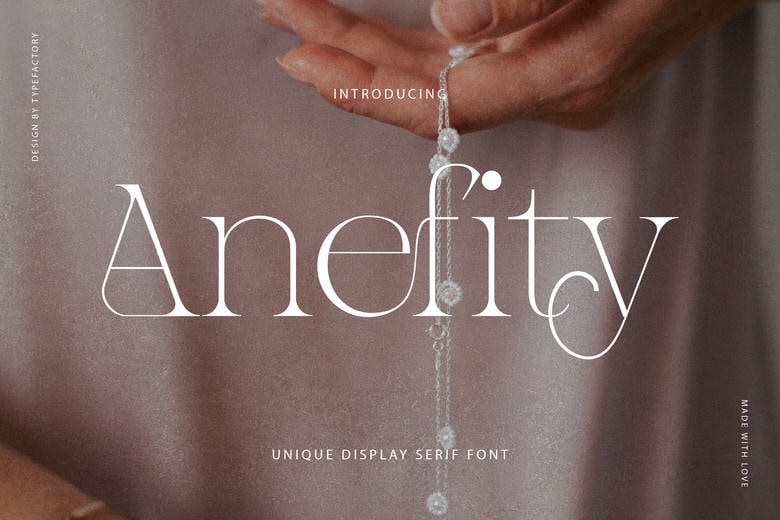
Anefity Font
Introducing Anefity – a one-of-a-kind display serif font that marvellously merges time-honoured elegance with a splash of modern panache. Drawn with sweeping curves and polished serifs, Anefity imparts an element of finesse to every design undertaking. Perfectly suited to branding initiatives, editorial formats, logos, packaging, and headlines, Anefity stakes a bold and unforgettable claim in any project.
Its striking letterforms and chic demeanor make it an outstanding choice for tasks that seek a stylish, yet enduring serif aesthetic. Propel your typography to new heights with the artistically profound character of Anefity.
Anefity Serif Font